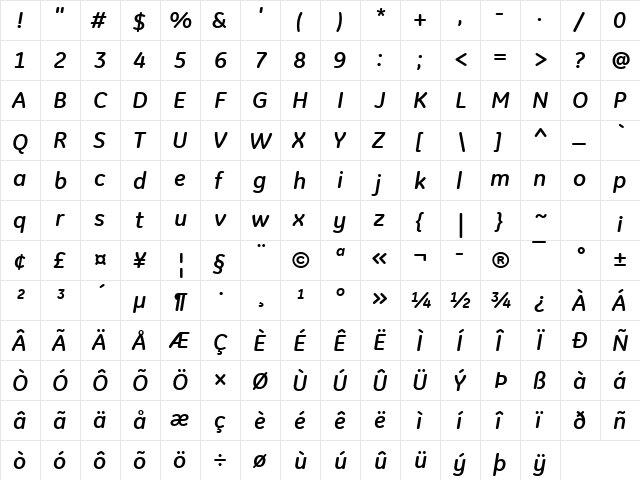
GE Inspira Bold Italic
| Foundry | Agfa Monotype Corporation |
Design Context for GE Inspira Typeface
GE Inspira takes a measured approach to typography — its balanced proportions and neutral character make it a reliable workhorse for both digital and print work. Its italic angle brings a sense of urgency and motion to the letterforms. The heavy weight commands attention and anchors typographic hierarchies.
Pro Tip: Use GE Inspira for emphasis, pull quotes, and subheadings where its slanted energy can add rhythm to the layout.